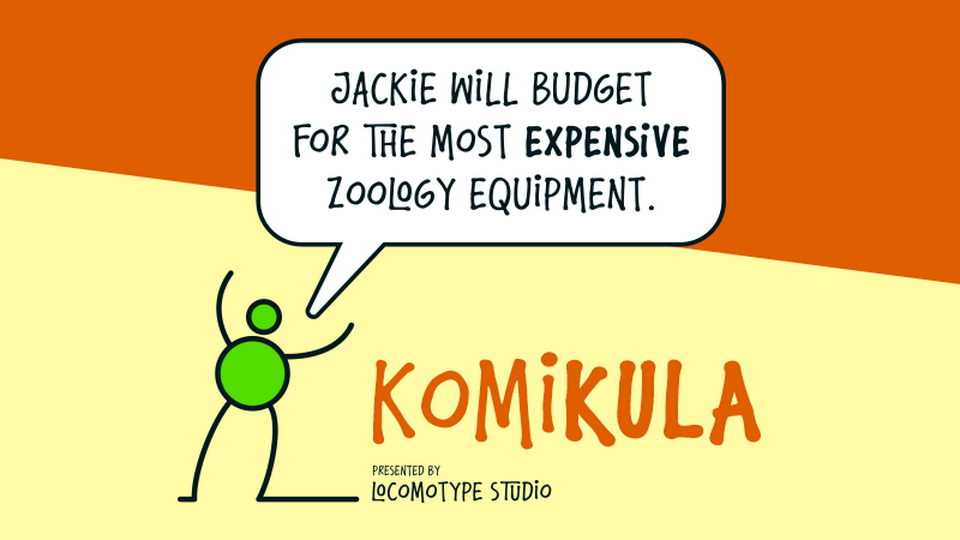
Download Komikula font, a funny handwritten typeface that dedicated to comic artist, cartoonists and graphic designers. Komikula font is made from original handwriting using markers.
Designer: Locomotype